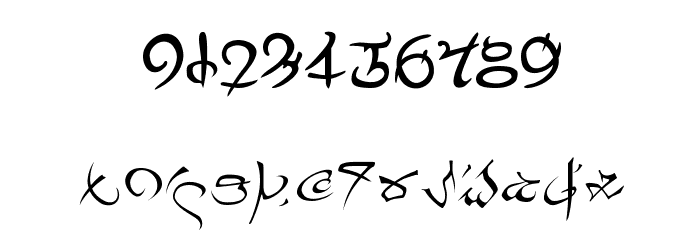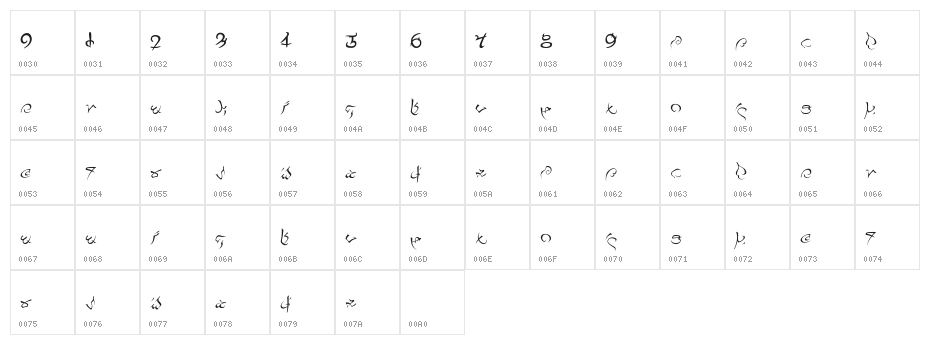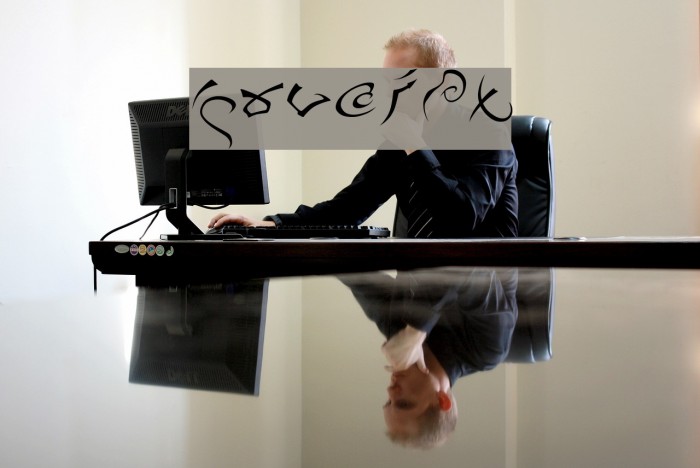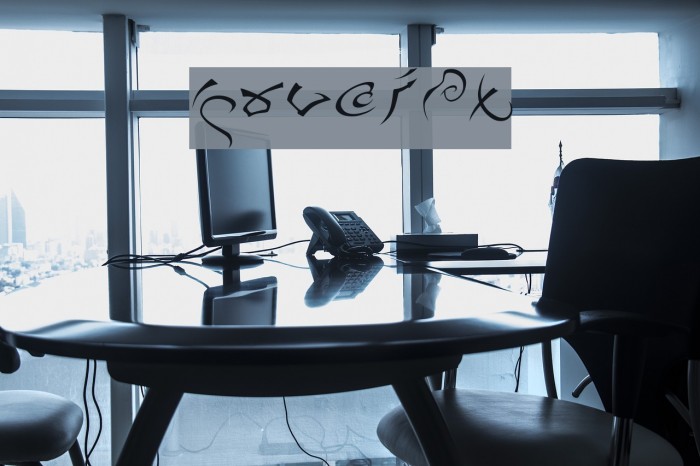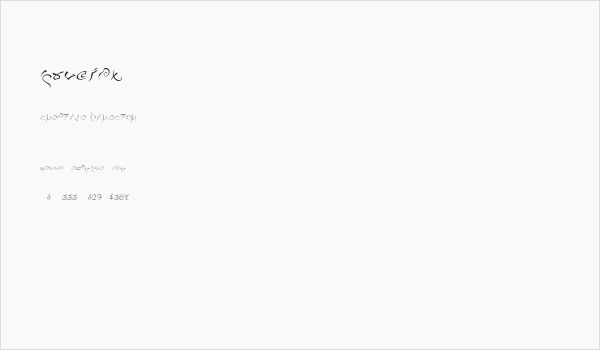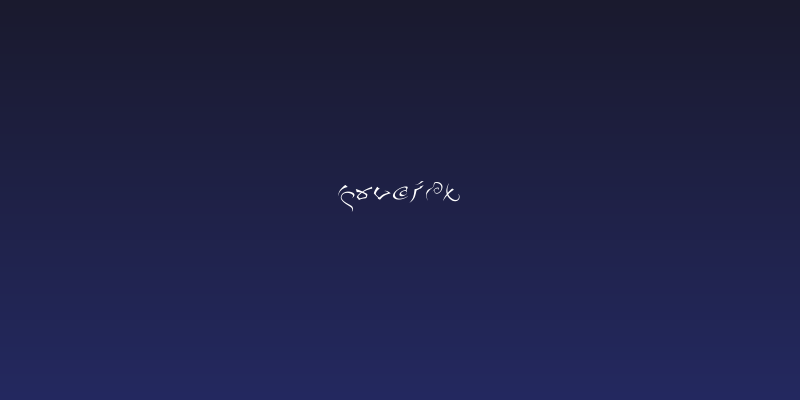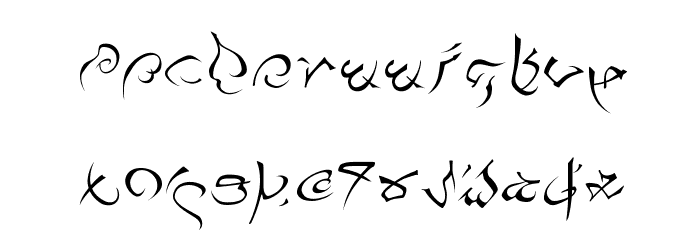
Pulsian Font
Pulsian Description
This font features a highly decorative and artistic style, characterized by its flowing, cursive-like strokes and intricate detailing. The characters exhibit a unique blend of sharp angles and smooth curves, creating an exotic and mysterious appearance. The uppercase and lowercase letters maintain a consistent style, with each character displaying a distinct flair. The numbers are bold and maintain the same artistic theme, ensuring uniformity across the font. This font's elaborate design makes it stand out, ideal for projects that require a touch of elegance and creativity.